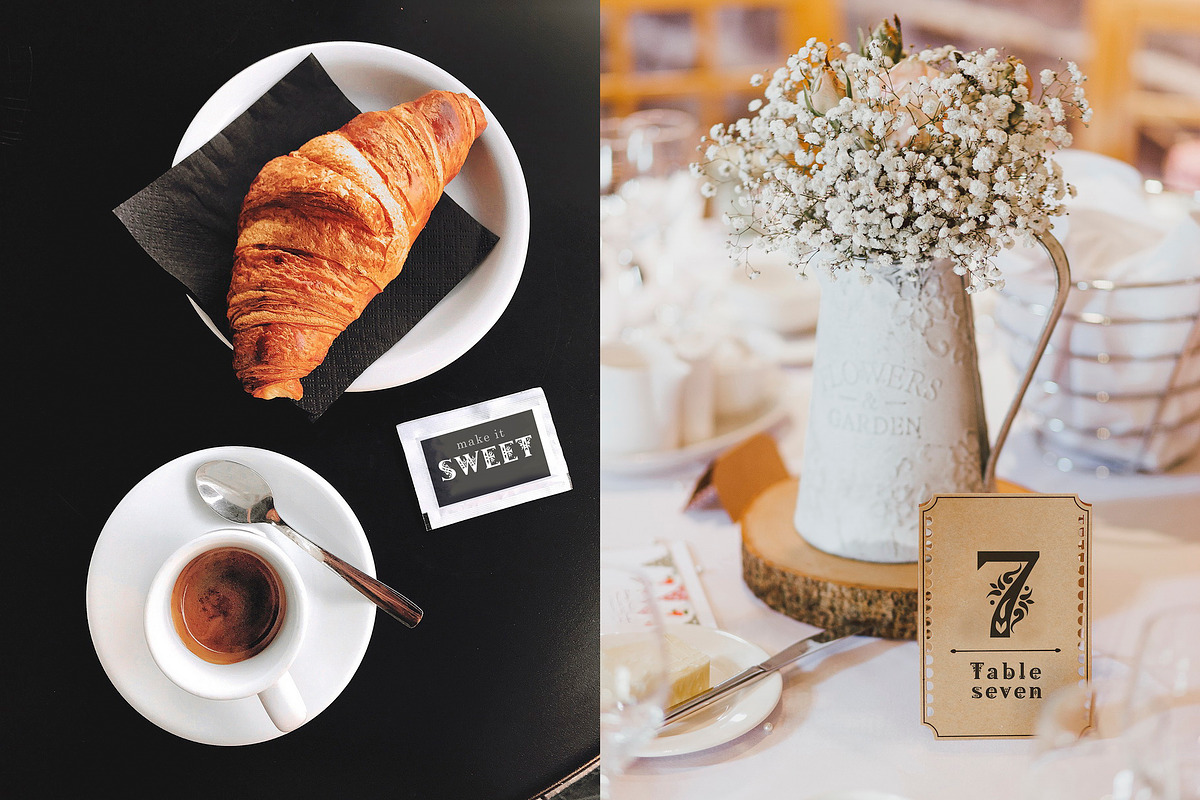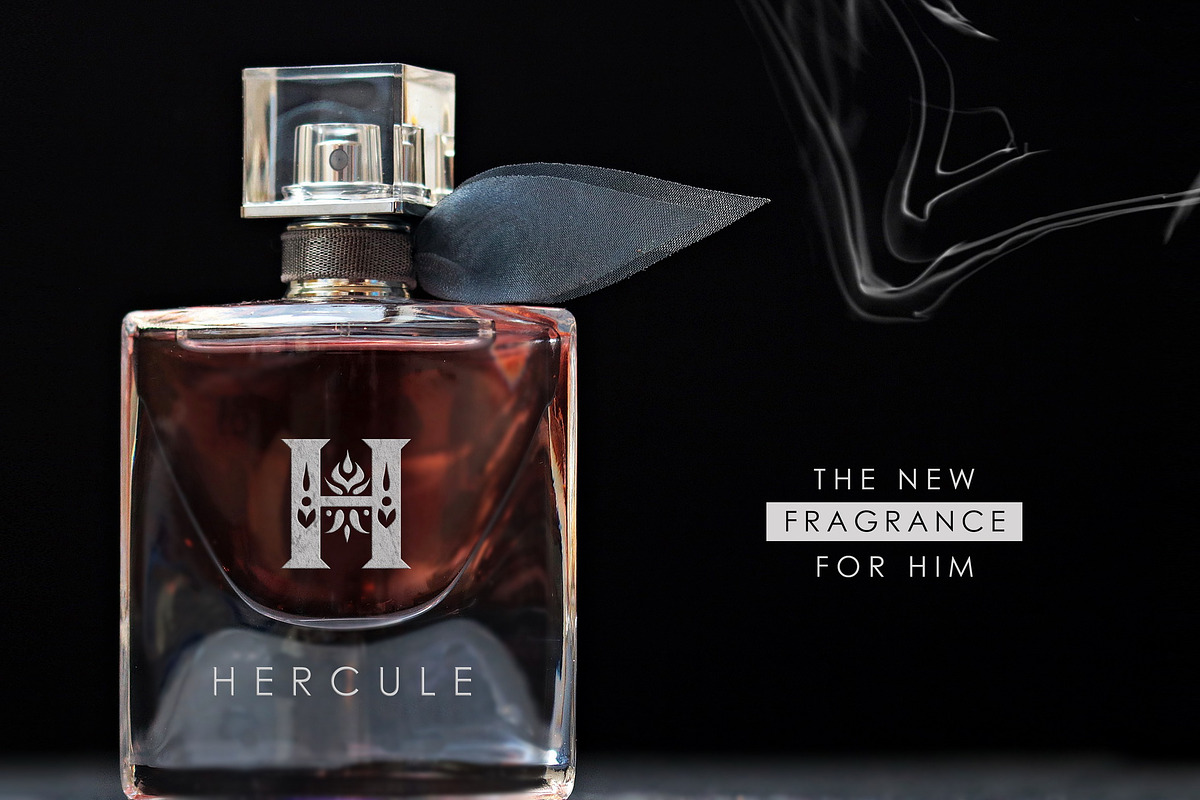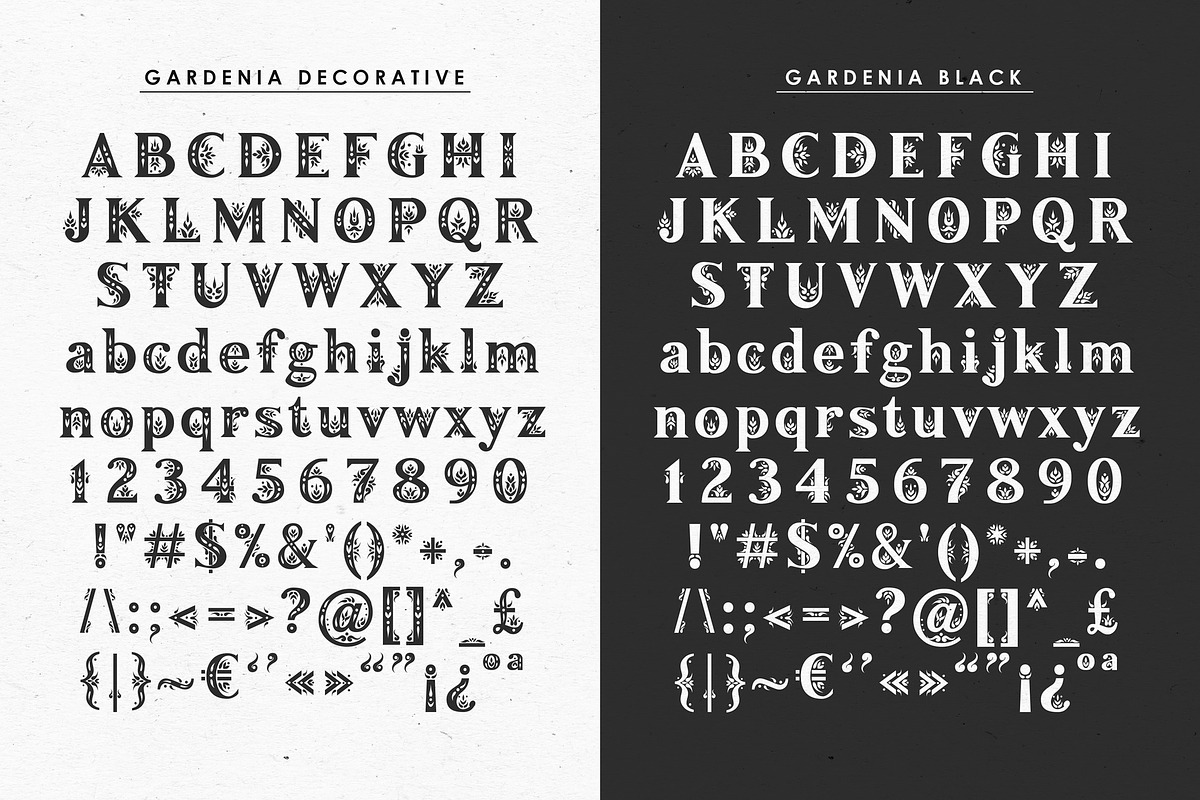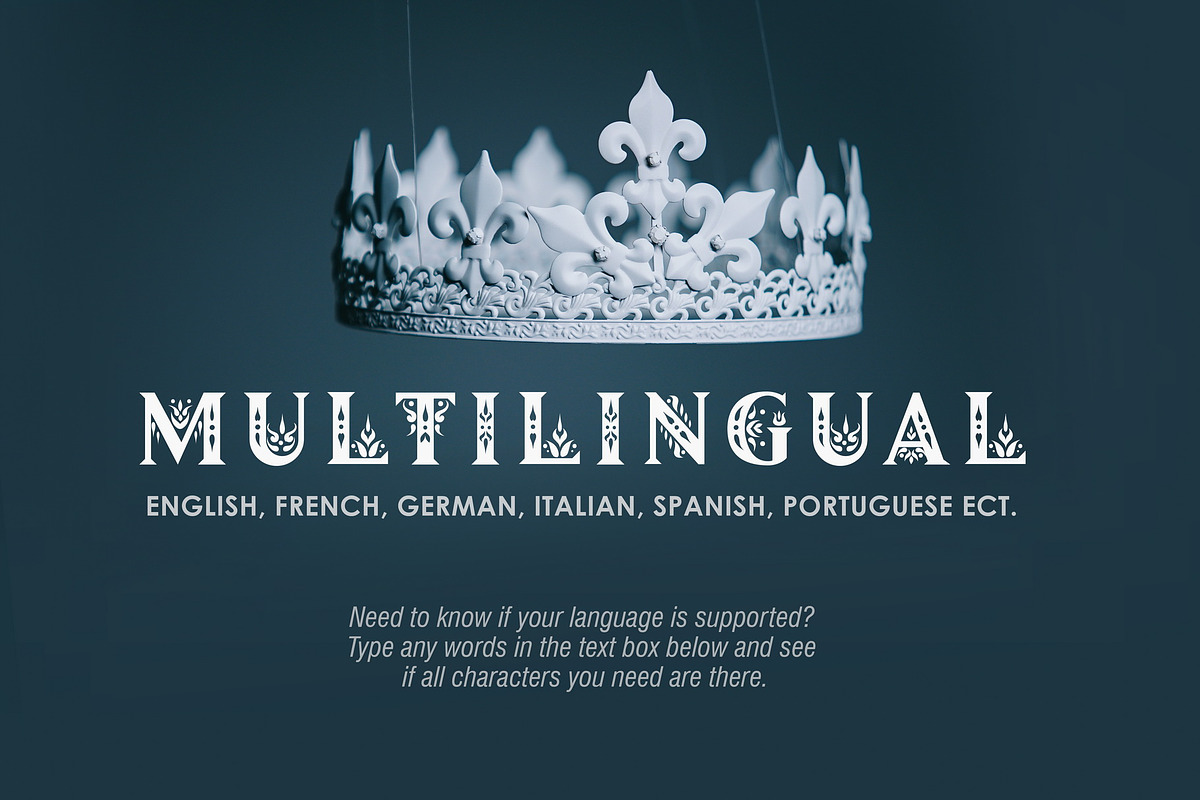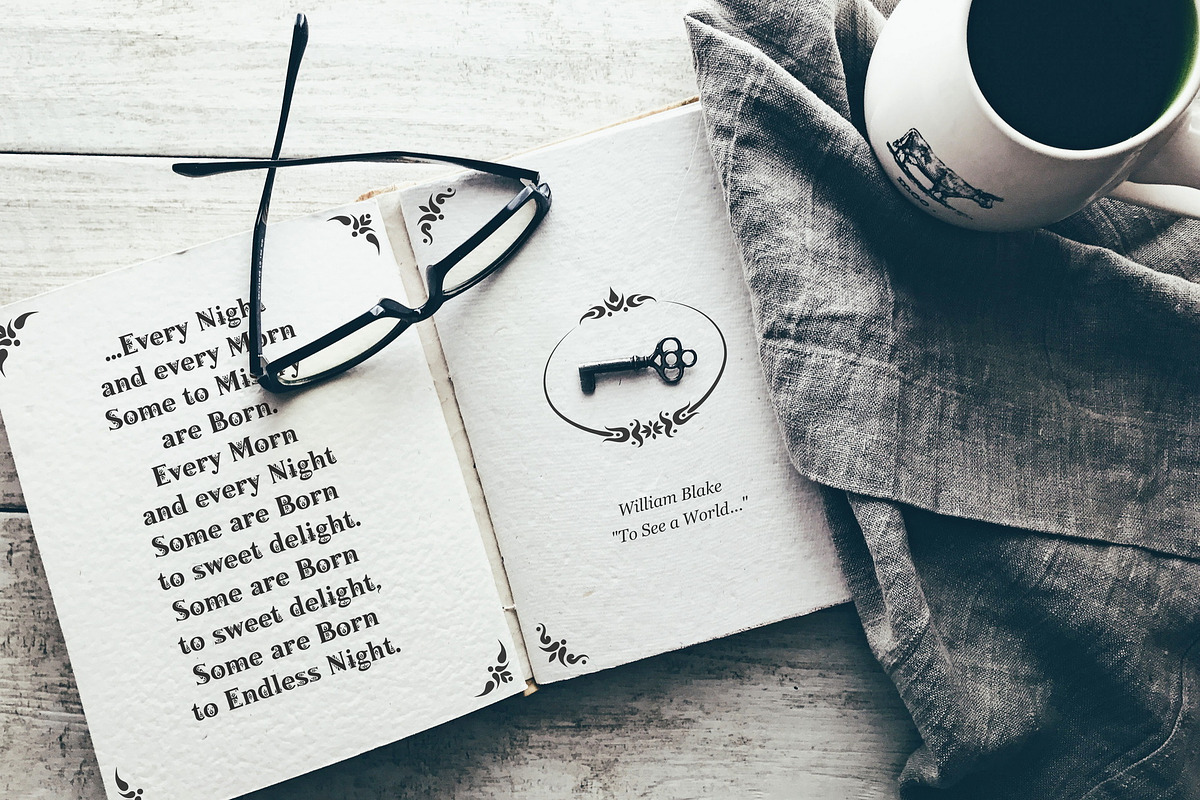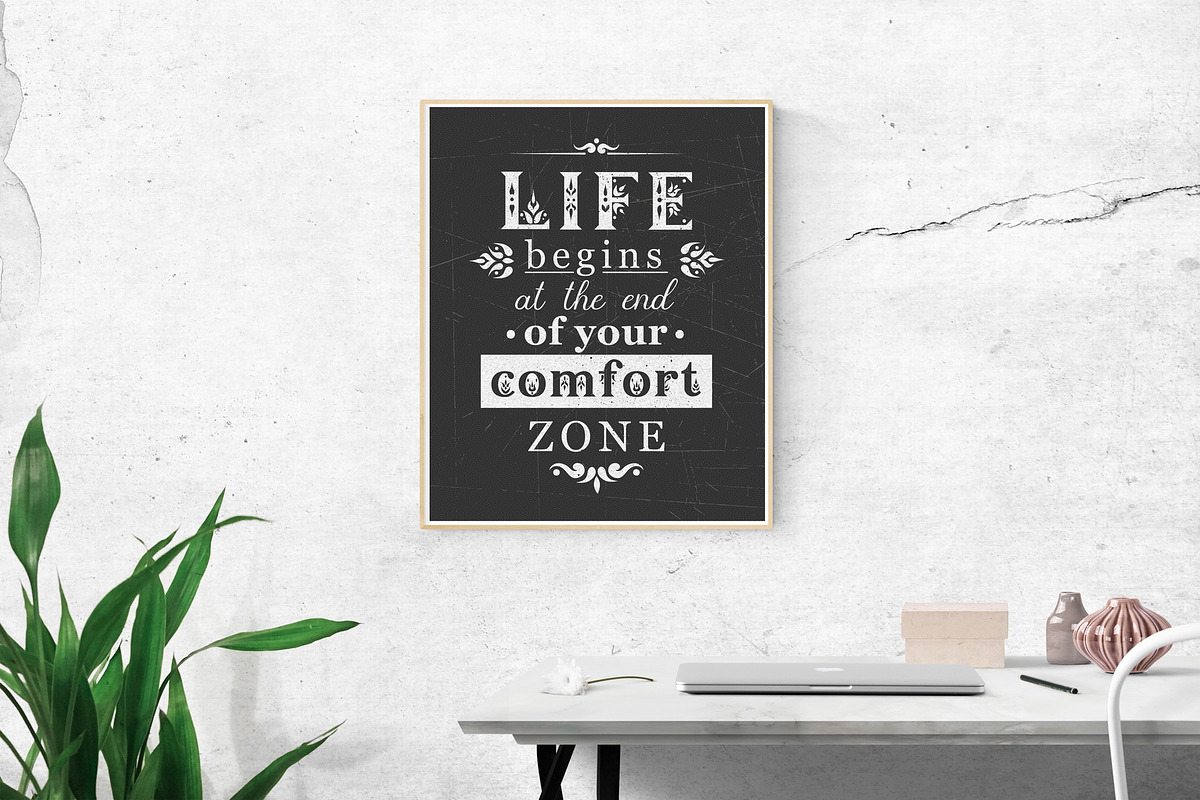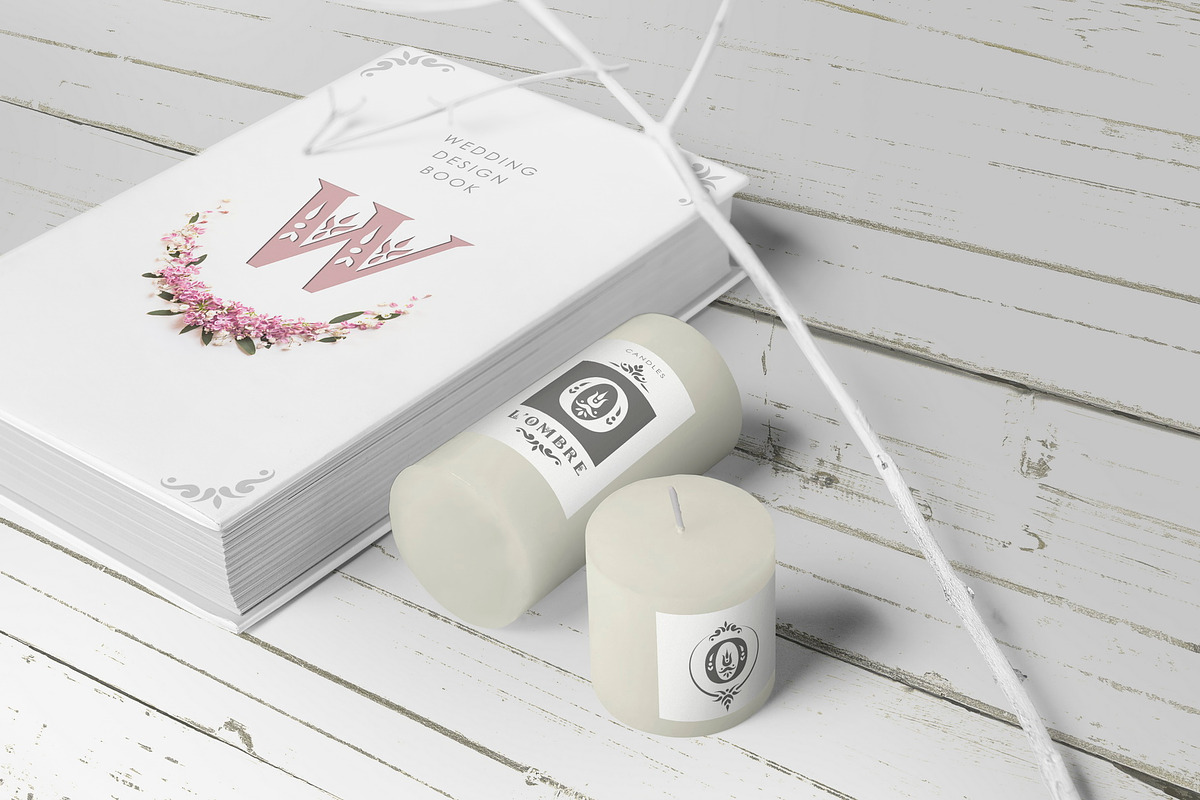
Gardenia - Serif Font Family
I would like to introduce my new product - Gardenia Serif Font Family. Gardenia is serif font decorated with floral patterns. The typeface includes Decorative and Black versions. The product contains a set of decorative elements that perfectly match with the font.
The font is easy to use in various design programs or without any program. Gardenia font is good combined with any serif font (Garamond, Bodoni, Georgia) and with sans serif fonts.
Gardenia font is suitable for wedding design: invitations, cards, wax seals, photo album design. The font works great both for lettering posters, article titles, craft products branding and packaging (floristics, soap making, natural cosmetics). Also use individual letters to create logos and monograms.
The font has extended language support, it includes English, French, German, Italian, Spanish, Portuguese. Need to know if your language is supported? Type any words in the text box below and see if all characters you need are there.
- Gardenia Decorative
- Gardenia Black